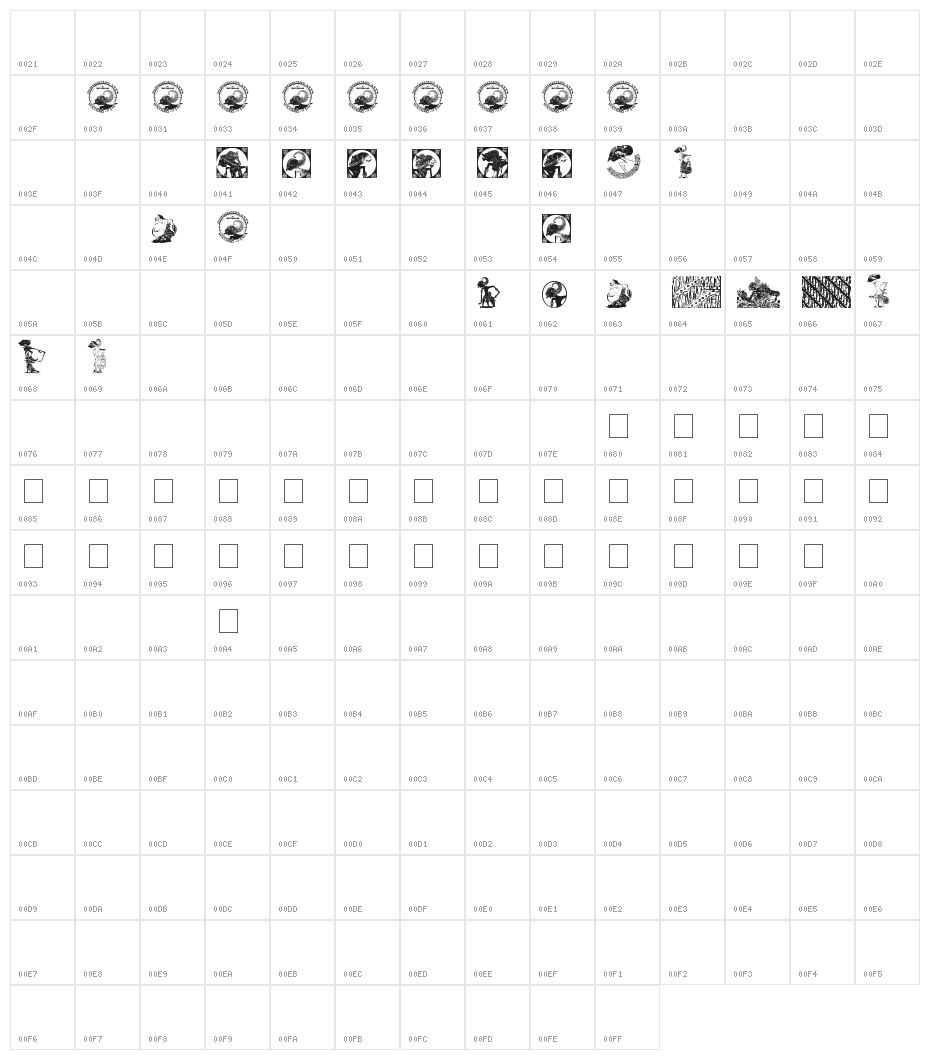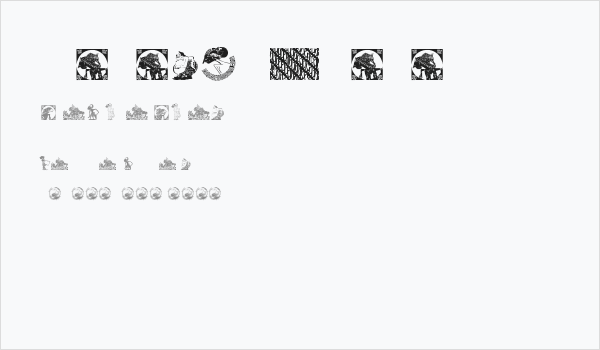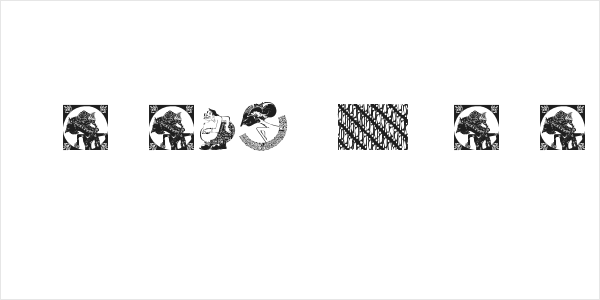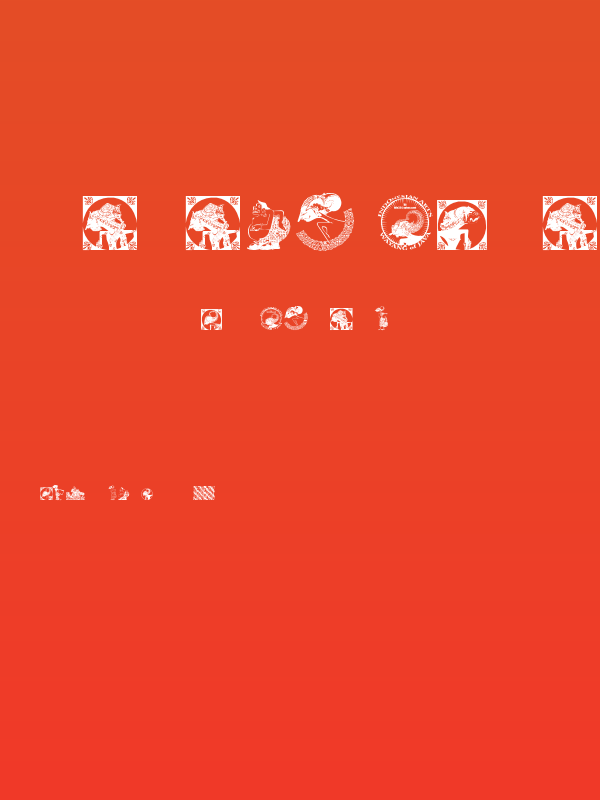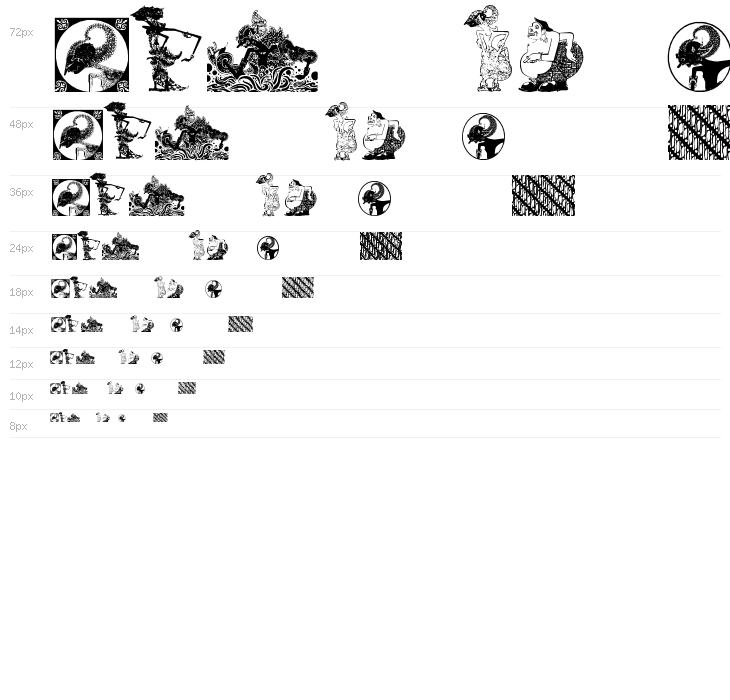
WAYANG of JAVA Font
WAYANG of JAVA Description
A decorative display font composed of intricate Javanese wayang (shadow puppet) illustrations, each character represented by a unique, detailed silhouette or scene. The glyphs are highly pictorial, focusing on traditional cultural motifs rather than standard letterforms.
| Overall Style | Decorative, Cultural, Artistic |
| Use Case | Logos, Headlines, Posters, Thematic graphics |
| Proposed Projects | Cultural posters, event branding, museum exhibits, educational materials, themed invitations. |